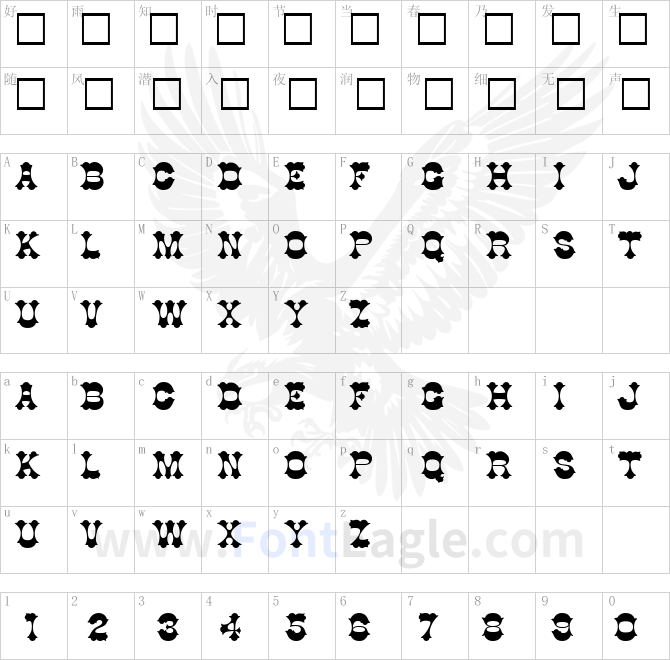
- Font name:PT Longbranch
PT-Longbranch is a great font, widely used in graphic design, single-page menu design, poster design and other fields, and is deeply loved by designers.PT-Longbranch download.